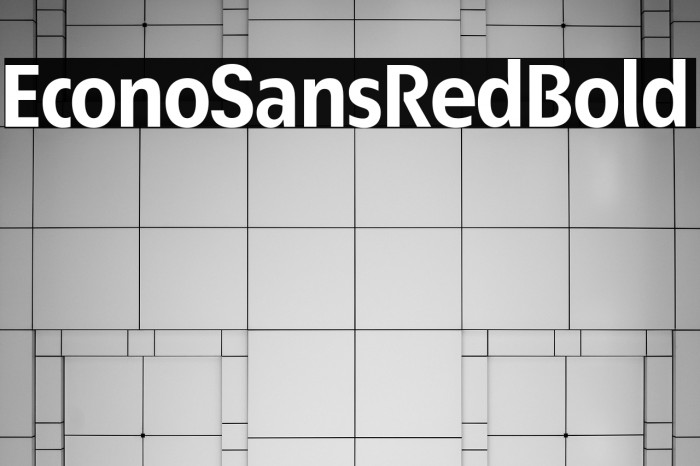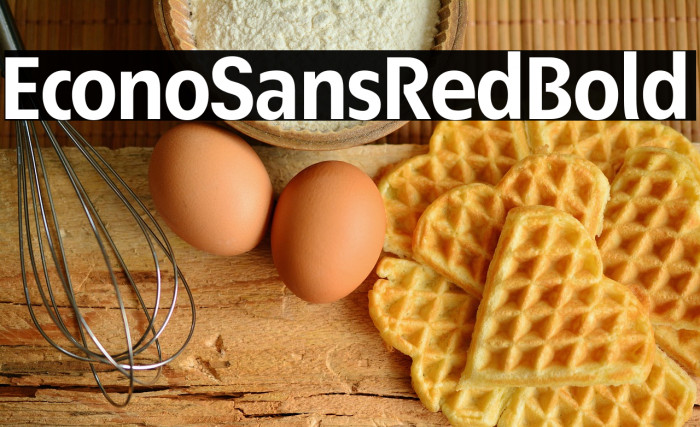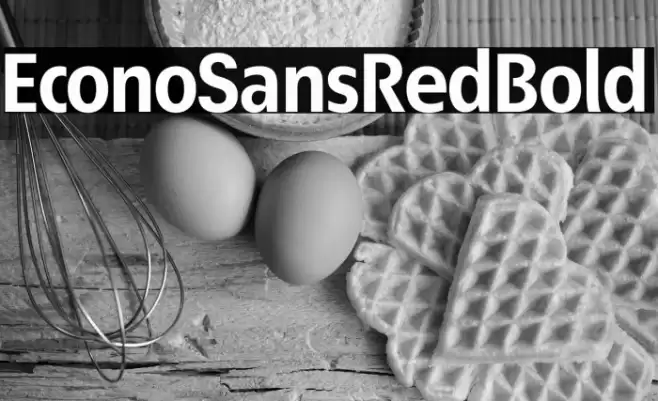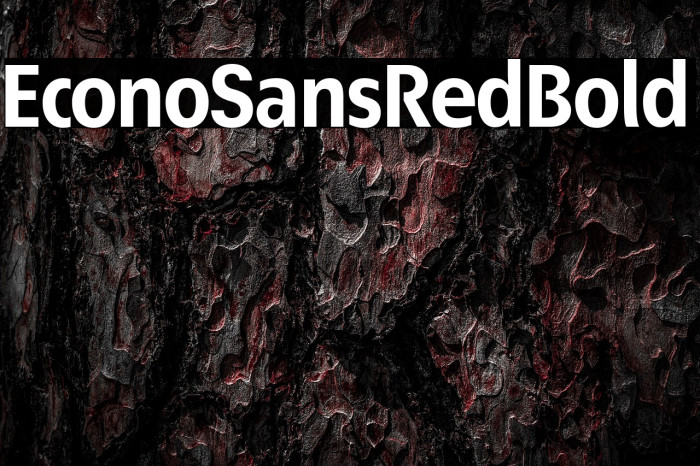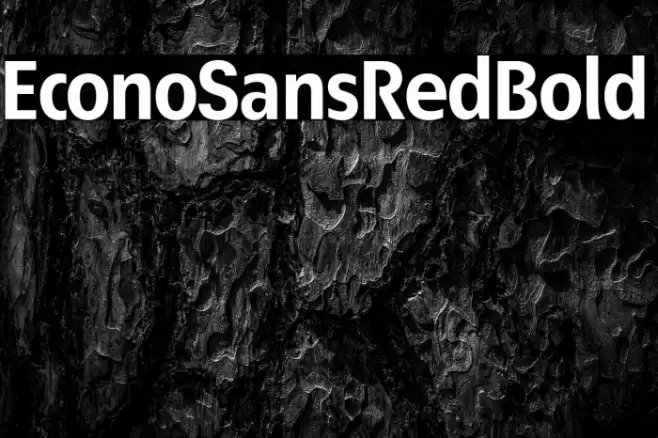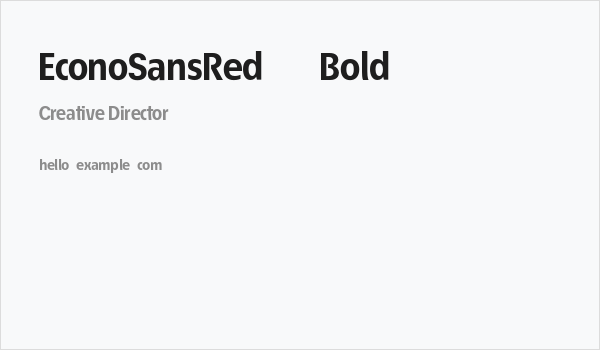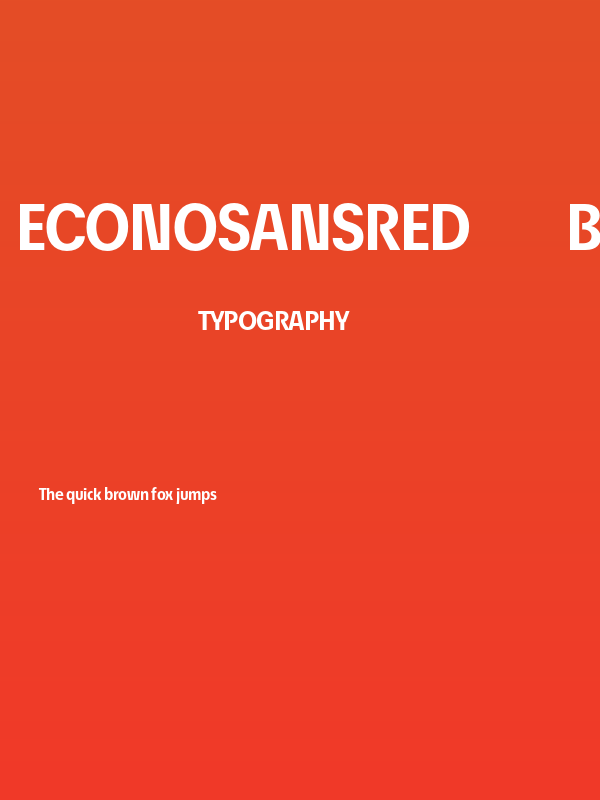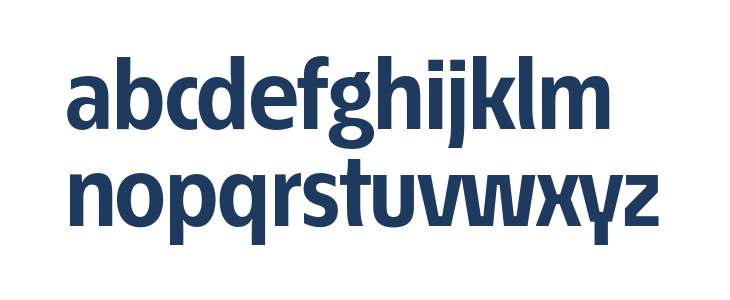
EconoSansRed-75Bold Font
EconoSansRed-75Bold Description
This typeface features a bold and assertive design with clean lines and a modern aesthetic. The characters are well-defined with a uniform stroke width, contributing to a strong and impactful presence. The uppercase letters are particularly striking, with a geometric influence that enhances their readability and visual appeal. The lowercase letters maintain a consistent style, ensuring harmony across the typeface. The numerals are clear and straightforward, complementing the overall design. This font's simplicity and boldness make it suitable for a variety of applications where clarity and impact are essential.
| Use Case | Headlines, Logos, Advertising |
| Proposed Projects | Ideal for branding, advertising, headlines, and digital media where a strong visual impact is needed. |